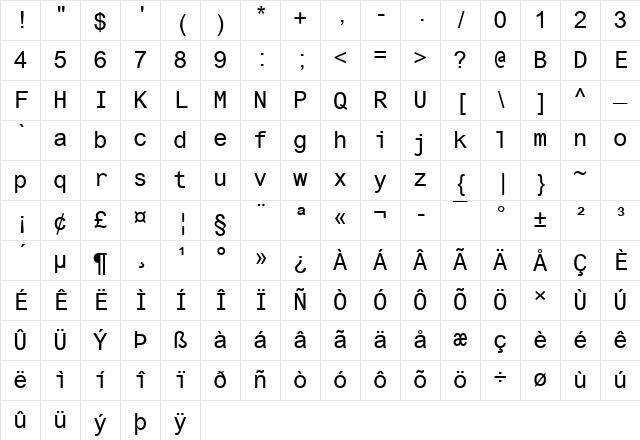
Arial Monospaced Regular
Design Context for Arial Monospaced
Arial Monospaced uses fixed-width spacing throughout, giving it the structured, systematic character associated with coding environments and technical documentation.
Pro Tip: Use Arial Monospaced with slightly increased line-height for extended reading - fixed-width spacing can feel dense in longer passages without extra breathing room.